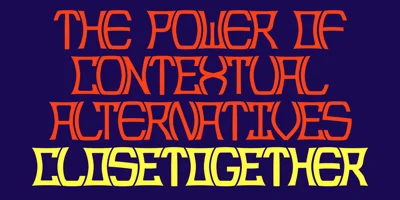
Close Together Font
Close Together Font is perfect for intimate relationship counseling, family unity campaigns, community building materials, bonding workshop graphics, togetherness-themed events, support group branding, collaborative team building, friendship celebration designs, unity movement graphics, and connected applications that celebrate the power of human connection and meaningful relationships.
What makes Close Together Font truly exciting is its authentic representation of human connection and emotional intimacy that captures the essential need for meaningful relationships and community bonds in our interconnected world. This exceptional typeface embodies the spirit of togetherness with its closely-knit letterforms and unified character spacing that convey both emotional warmth and social cohesion. The font's relationship-focused personality and community-centered design make it perfect for organizations seeking to communicate connection, support, and the transformative power of bringing people together through shared experiences and mutual understanding.
The Close Together Font family includes multiple weights and styles: Light, Regular, Medium, Bold, and United variations designed for maximum connection impact. Each family member maintains the distinctive bonding character while offering flexibility for diverse relationship applications and community branding systems. The comprehensive character set supports unity typography needs and social design elements, making it suitable for international community communications.
When you choose Close Together Font, you're selecting a typography bridge that delivers authentic human connection and community excellence to every relationship-building project. This unifying typeface excels in applications where togetherness and emotional bonding are fundamental, delivering exceptional warmth while maintaining genuine authenticity. Whether you're designing community brands, relationship services, family campaigns, or social connection materials, this font provides the bonding strength and unity appeal that resonates with individuals who appreciate meaningful relationships, community support, and the essential human need for connection and belonging in our shared journey through life.